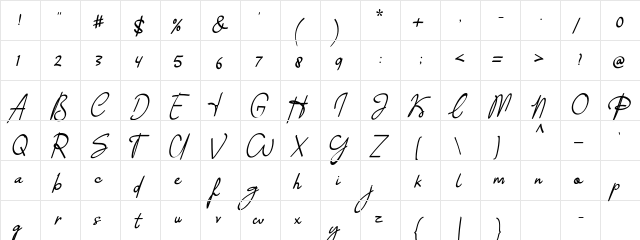
Photograph Regular
| Designer | DENIS |
Design Context for Photograph Typeface
Photograph takes a measured approach to typography — its balanced proportions and neutral character make it a reliable workhorse for both digital and print work.